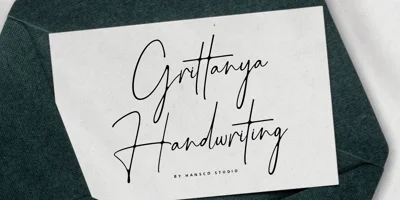
Grittanya Handwriting Font
Grittanya Handwriting Font is ideal for authentic personal branding, raw artistic journals, honest memoir publications, street art campaigns, independent music labels, gritty urban fashion, unfiltered lifestyle blogs, real story documentaries, authentic craft packaging, and genuine applications that celebrate unvarnished truth and authentic human expression.
What makes Grittanya Handwriting Font truly exciting is its powerful combination of raw authenticity and determined resilience that captures the honest beauty of real human experience without artificial polish or pretense. This exceptional typeface embodies the spirit of genuine expression with its imperfect letterforms and unrefined character that convey both emotional honesty and inner strength. The font's gritty personality and authentic handwriting style make it perfect for brands seeking to communicate real stories, genuine emotion, and the inspiring power of authentic human experience that refuses to be sanitized or commercialized.
The Grittanya Handwriting Font family includes multiple weights and styles: Light, Regular, Bold, Raw, and Authentic variations designed for maximum genuine impact. Each family member maintains the distinctive unpolished character while offering flexibility for diverse authentic applications and real-story branding systems. The comprehensive character set supports honest typography needs and genuine design elements, making it suitable for international authentic communications.
When you choose Grittanya Handwriting Font, you're selecting a typography truth-teller that delivers authentic human credibility and genuine expression to every real project. This honest typeface excels in applications where authenticity and emotional truth are paramount, delivering exceptional genuine appeal while maintaining raw authenticity. Whether you're designing personal brands, artistic campaigns, honest storytelling, or authentic marketing materials, this font provides the gritty authenticity and genuine human expression that resonates with audiences who appreciate real stories, honest emotion, and the beautiful imperfection of authentic human experience without filters or facade.